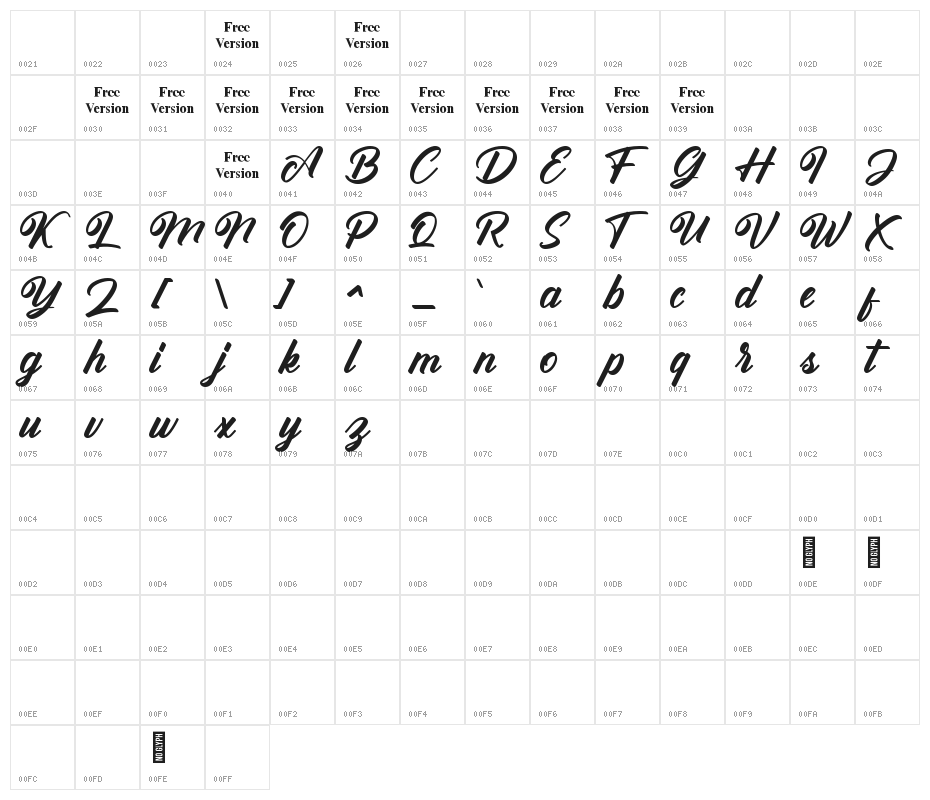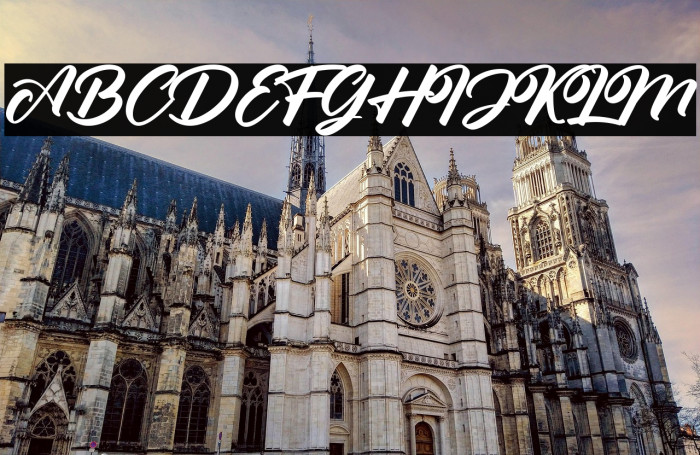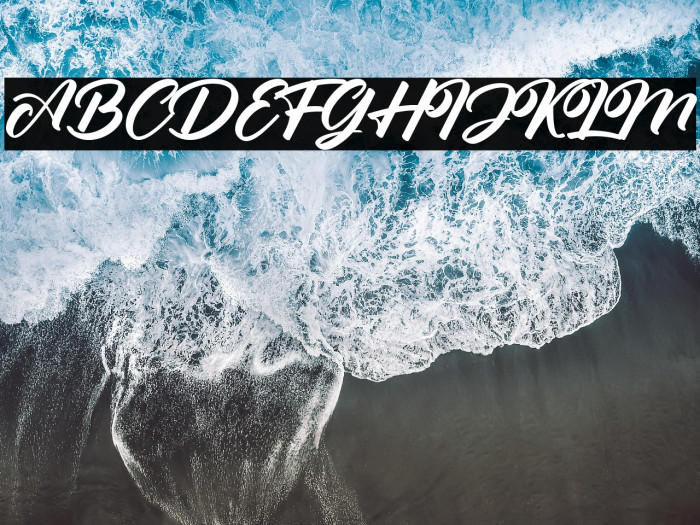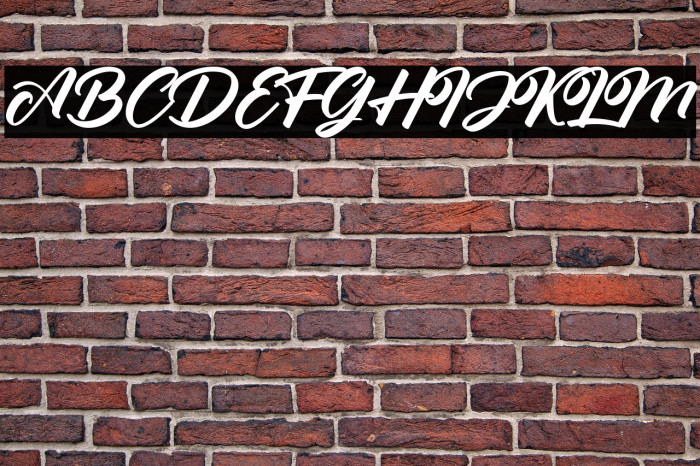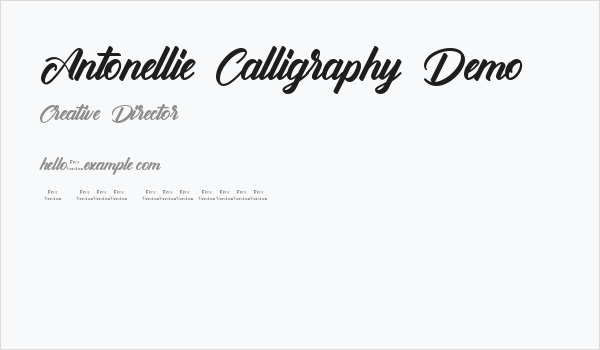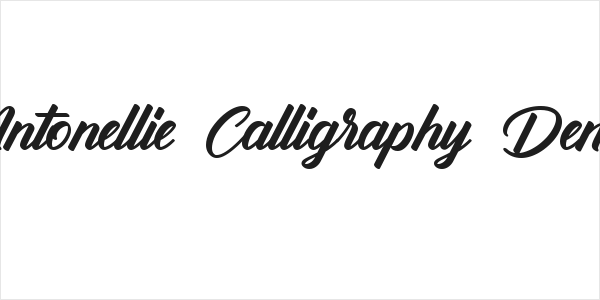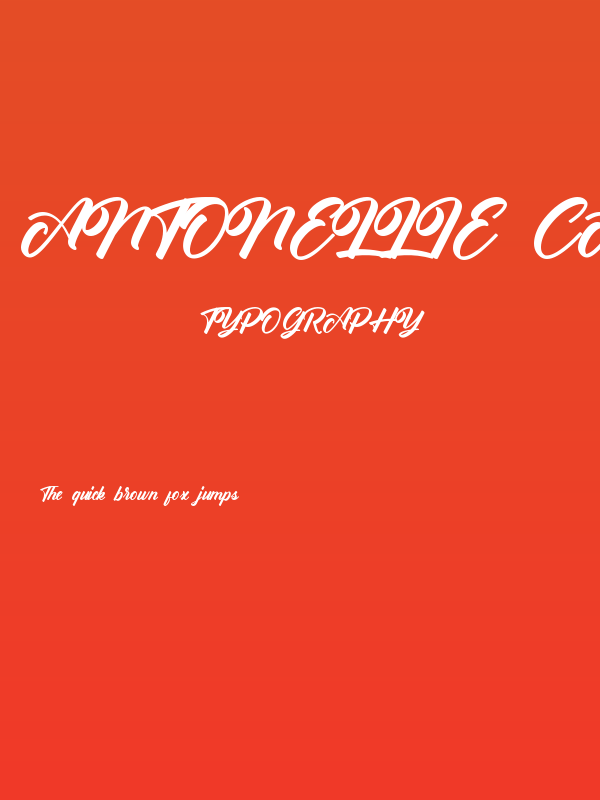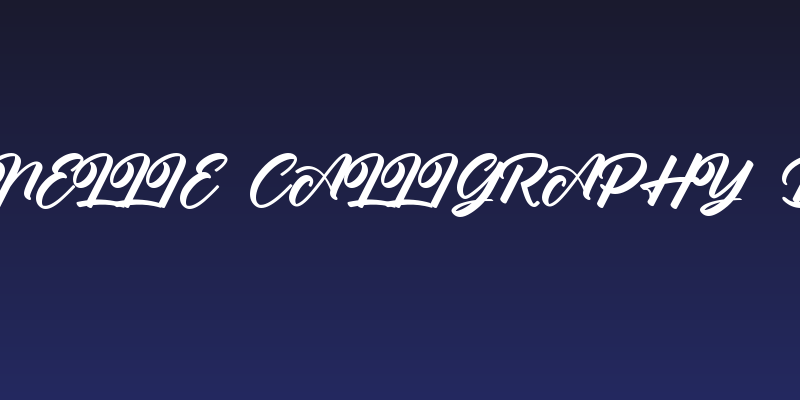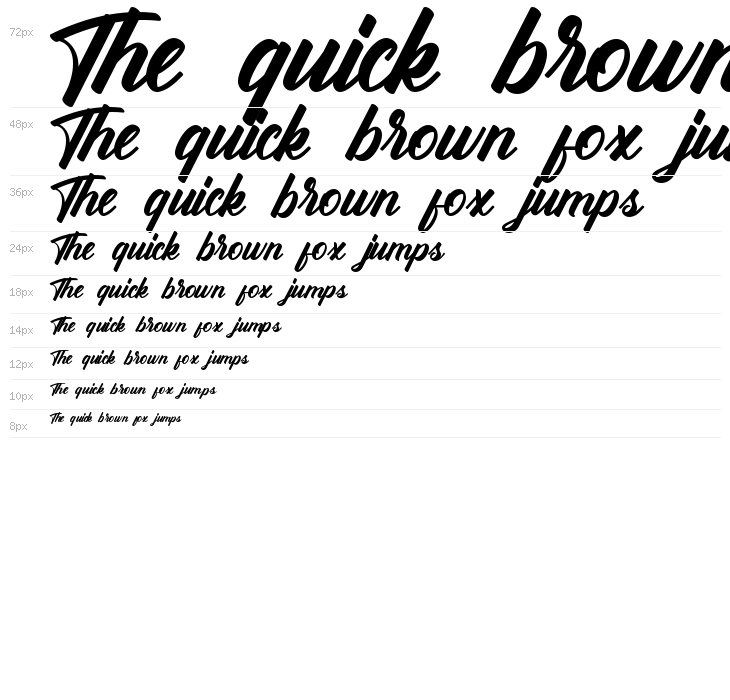
Antonellie Calligraphy Demo Font
Antonellie Calligraphy Demo Description
This elegant script font features a flowing, calligraphic style with smooth, connected strokes that mimic the fluidity of handwriting. The uppercase letters are bold and sweeping, while the lowercase letters maintain a consistent rhythm and grace. The font exudes a sense of sophistication and charm, making it ideal for projects that require a personal touch. The characters are well-spaced, ensuring readability while maintaining the artistic flair typical of calligraphy. Its decorative nature is perfect for adding a touch of elegance to any design.
| Proposed Projects | Wedding invitations, greeting cards, branding, and elegant packaging designs. |